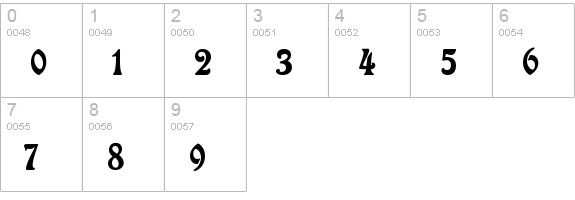
Freedom Bold is a strong, high-contrast variant in the Freedom typeface family \xE2\x80\x94 well suited to headlines, attention-grabbing titles, and strong calls-to-action.
Introducing Freedom Bold - a striking and versatile font that embodies the essence of liberation and boldness. With its strong and confident design, this typeface exudes a sense of freedom and empowerment, making it perfect for projects that seek to make a statement and stand out from the crowd. Freedom Bold is not only visually appealing but also incredibly easy to read, making it suitable for a wide range of design applications. Whether you're creating posters, logos, headlines, or any other design project, this font will help you convey your message with style and impact. Best of all, Freedom Bold is completely free to download at FontsMarket.com. Now you can unleash your creativity and explore the boundless possibilities of this stunning font without any restrictions. Download Freedom Bold today and let your designs break free from convention!